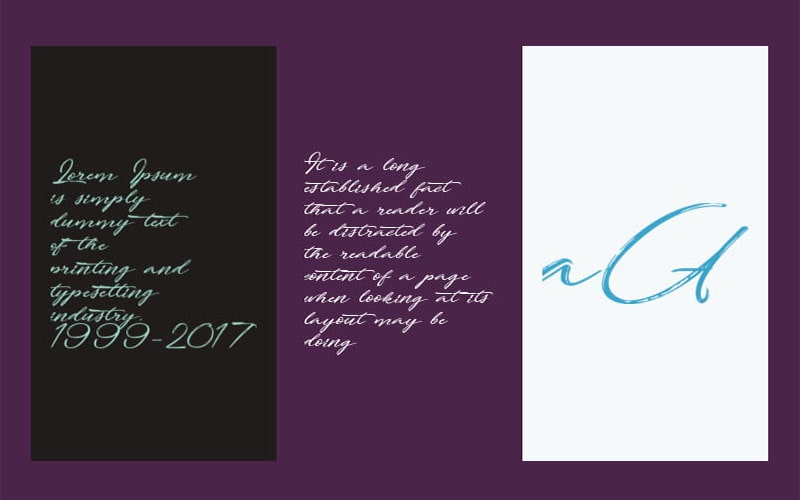
Fortunates December Font is an elegant and festive script typeface that captures the joy and warmth of the holiday season. Its graceful, flowing letterforms and intricate details make it an ideal choice for projects requiring sophistication and holiday cheer.
The designer of Fortunates December Font is Thomas Boucherie. He often associated with creative studios or individual typographers specializing in creating festive and decorative typefaces.
This typeface includes a comprehensive character set, Uppercase, and lowercase letters, Numerals, Punctuation marks, Special characters, diacritics, Various ligatures, and swashes for added stylistic options.
This extensive character set allows for a high degree of customization and creativity in typography. Let’s have a look at its unique texture to know how it looks.
Fortunates December Font
| Style: | Calligraphy, Script, Typeface |
| Font Designer: | Octotype | Thomas Boucherie |
It typically comes in a single, highly stylized script font style. The design features smooth, connected letterforms with ornate swashes and flourishes, embodying the spirit of festive celebrations and elegant calligraphy.